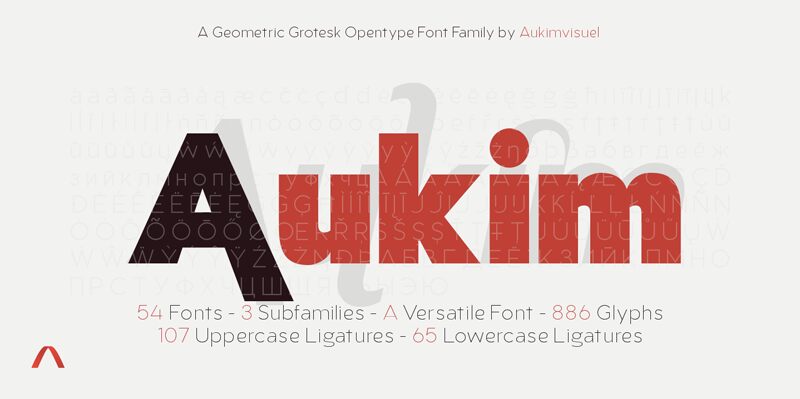
AukimExtraBold
Aukim ExtraBold font is a modern sans serif font family with a geometric twist, created in 2021 by a Congolese type designer, Audry Kitoko Makelele. It is available in two versions (normal and extended) making a total of 36 fonts. There are 9 weights with their true italics. Over 600 glyphs per font provide a wide range of language support, from Latin to Cyrillic, as well as powerful Opentype features such as professional kerning, stylistic variations, very special ligatures, old-fashioned tabular figures, Fractions, denominators, exponents, unlimited indices, arrows and more to satisfy the most demanding professionals.
On the one hand, it features rounded curves with very open terminals that make this font family elegant, user-friendly and contemporary and on the other hand very useful for writing titles on any medium. Perfectly suited for graphic design and any display use. It could easily work for web, signage, corporate as well as editorial design. Its a wonderful, bold and elegant font.